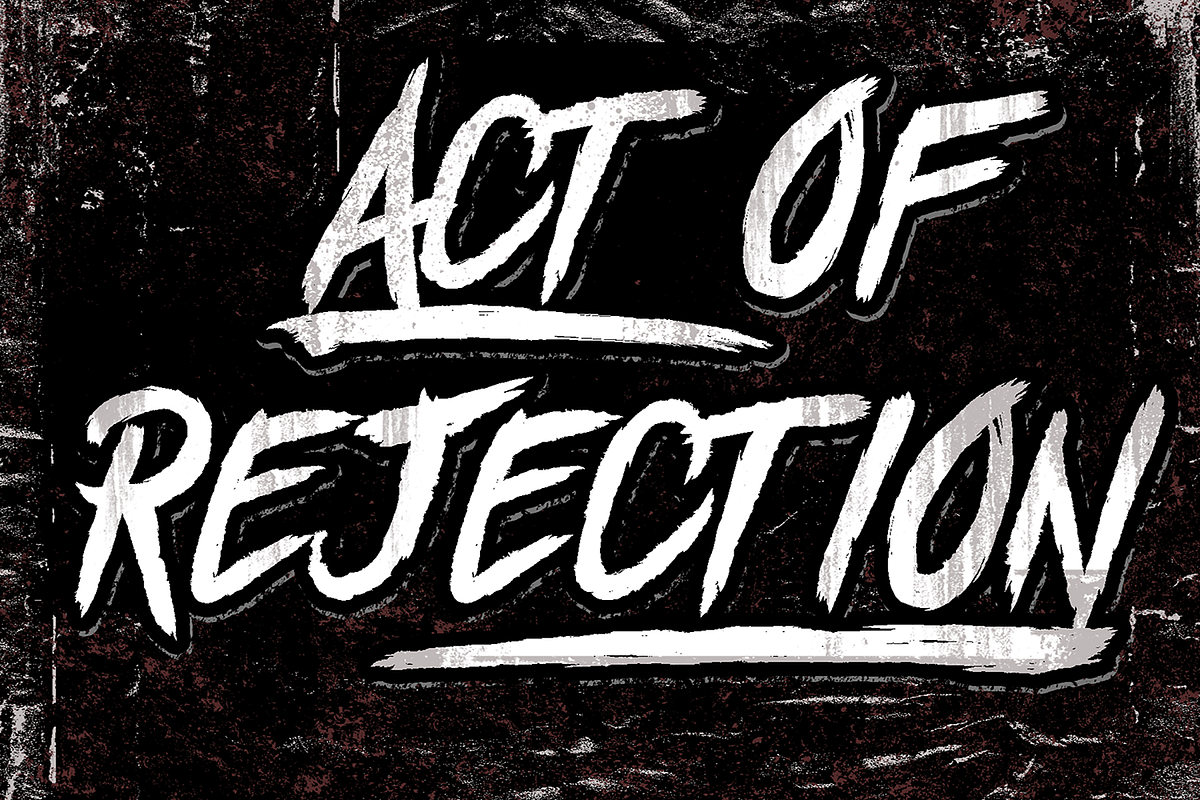
ACT OF REJECTION
Introducing
ACT OF REJECTION
- Trash brush inspired font perfect on your school projects, covers, etc.
- Lifestyle street theme font for branding, website, mobile app etc.